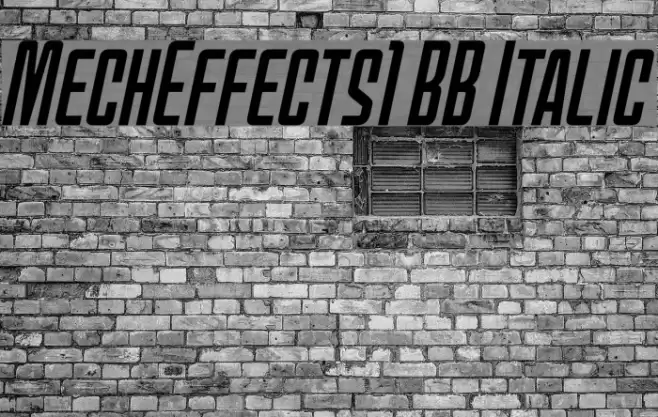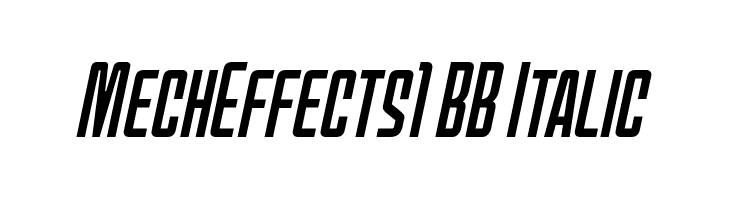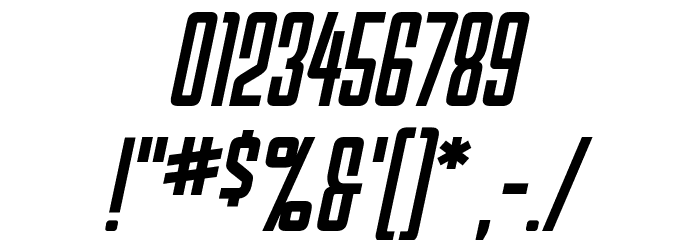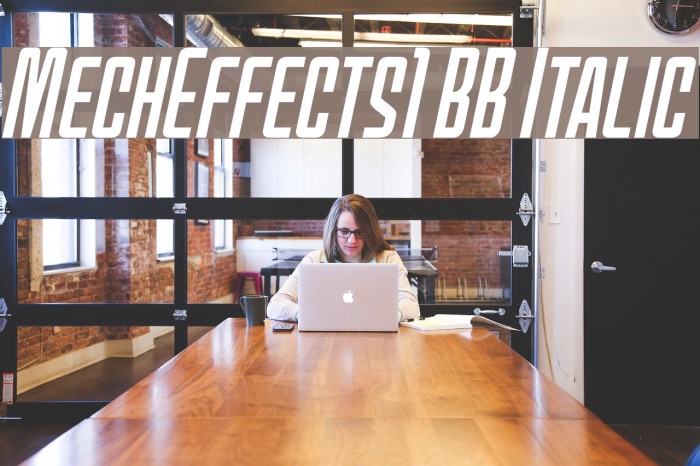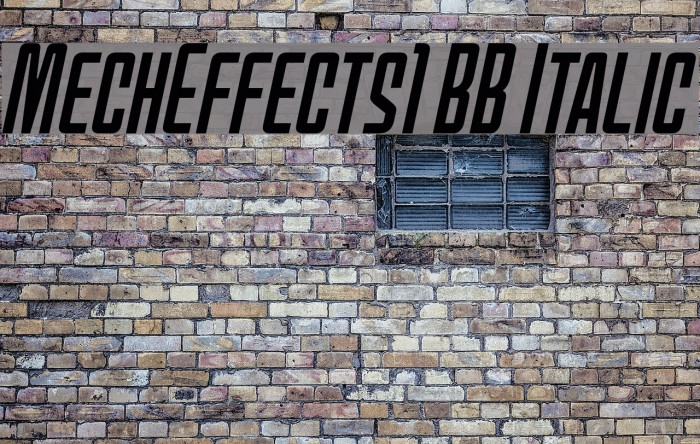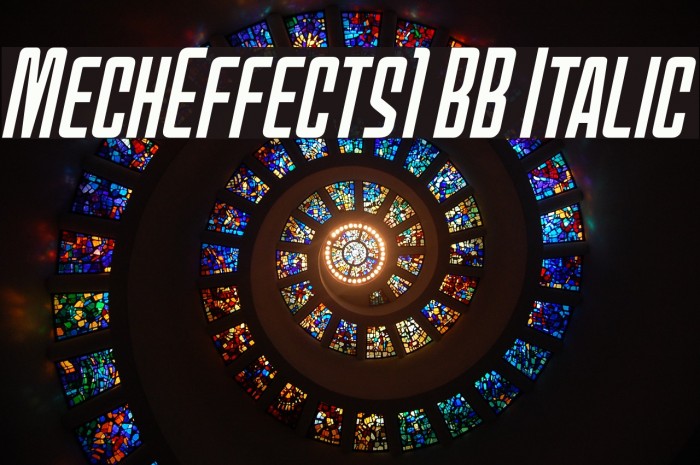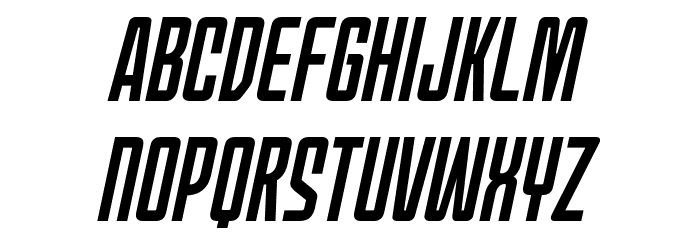
MechEffects1 BB Italic Font
MechEffects1 BB Italic Description
This font features a bold and italicized style with a futuristic and mechanical aesthetic. The characters are elongated and slightly slanted, giving a sense of motion and speed. The uppercase and lowercase letters maintain a consistent height, contributing to a uniform appearance. The numbers and special characters are designed to match the overall style, with sharp angles and clean lines. This font is ideal for projects that require a modern and dynamic look, such as technology branding or sports-related designs.
A bold, italicized font with a futuristic and mechanical style from Uncategorized fonts.
- Proposed Projects: Ideal for technology branding, sports designs, and dynamic posters.
- Character Spacing: Tight